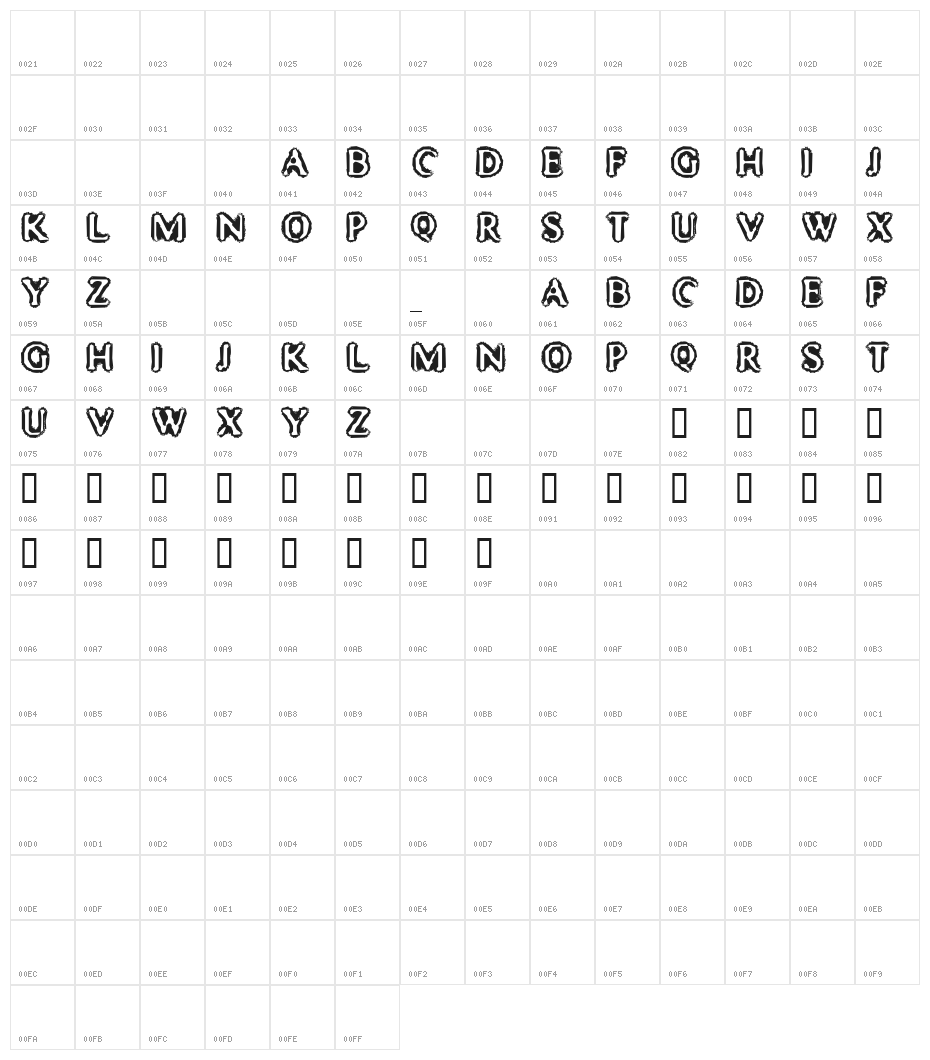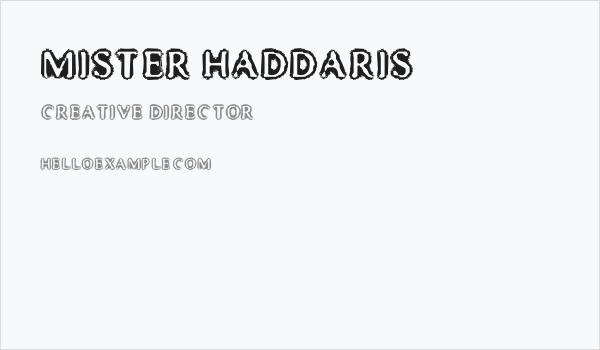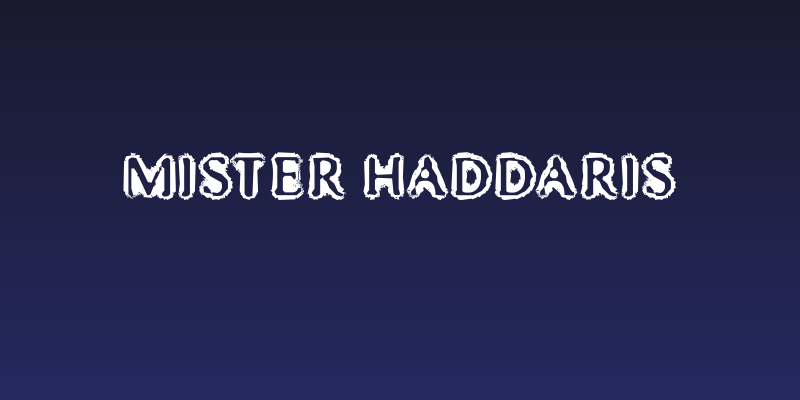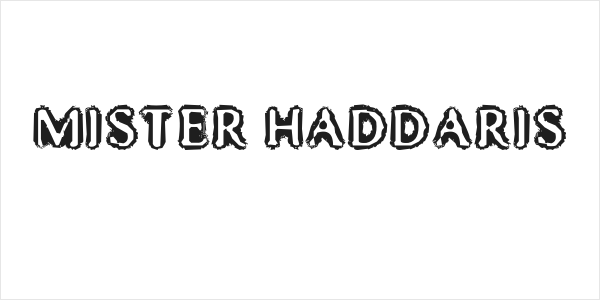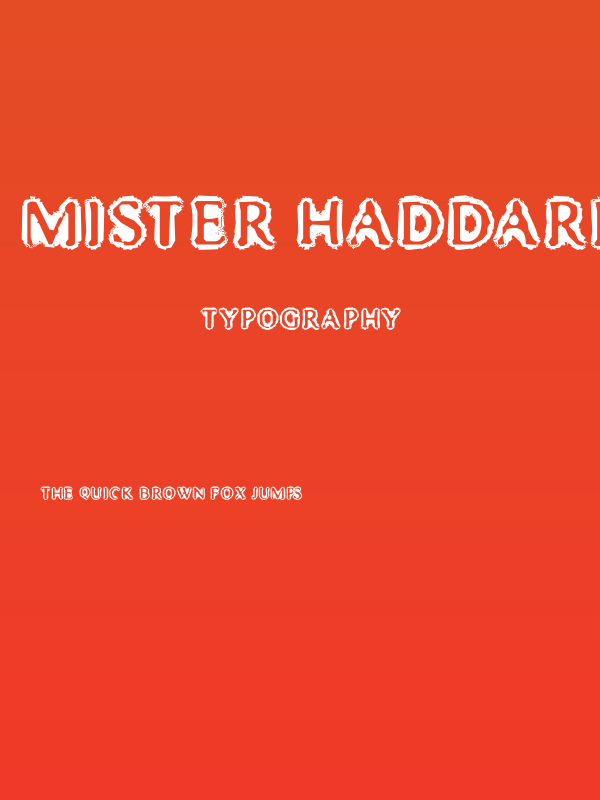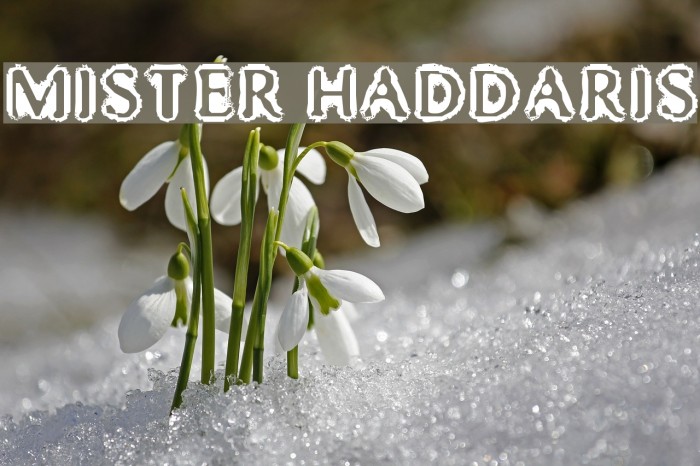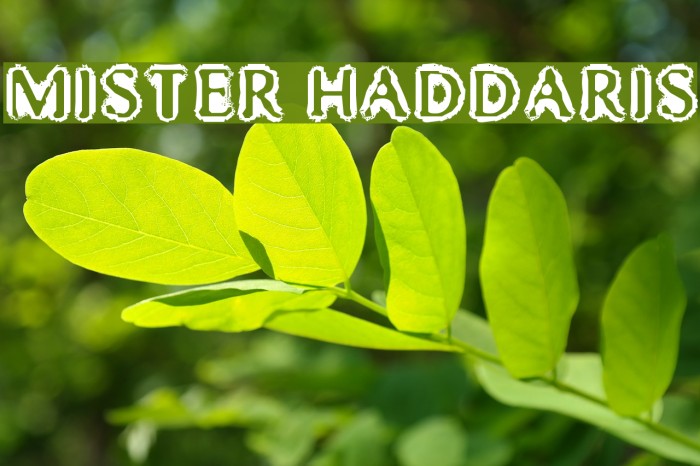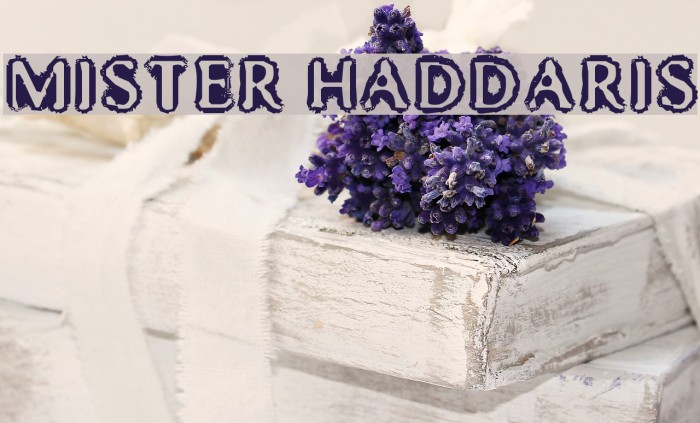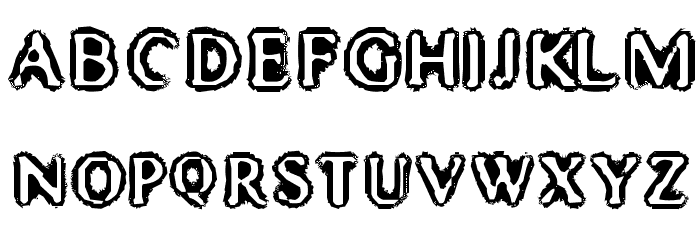
Mister Haddaris Font
✎ Distorted Eroded
Mister Haddaris Description
This font features a bold and decorative style with a unique outline effect that gives it a three-dimensional appearance. Each character is outlined with a thick, uneven stroke that adds a rugged and artistic flair. The letters are uppercase and maintain a consistent height, contributing to a uniform look despite the playful outlines. The font's design is reminiscent of vintage or retro styles, making it suitable for projects that require a touch of nostalgia or creativity. The boldness of the characters ensures high visibility, making it ideal for attention-grabbing headlines or titles.
| Overall Style | Vintage |
| Proposed Projects | Ideal for vintage-themed posters, creative branding, eye-catching headlines, and artistic designs. |